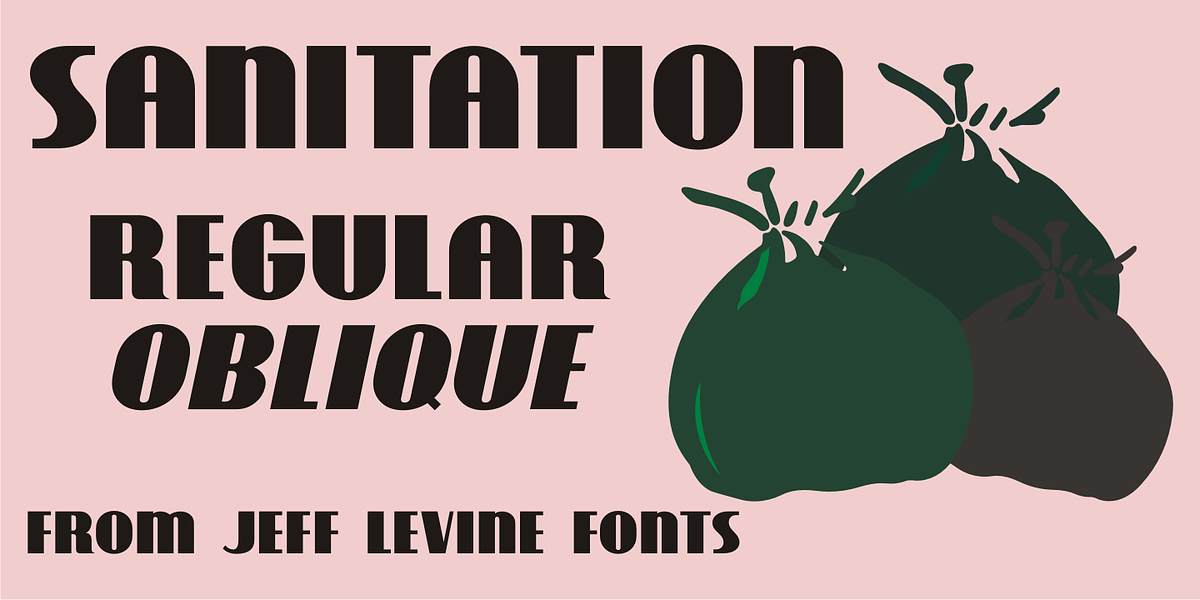
Sanitation JNL
Sanitation JNL is a bold Art Deco sans design inspired by some stylized hand lettering on a 1930s-era WPA (Works Progress Administration) poster and is available in both regular and oblique versions.
The topic of the poster was 'Your home is not complete without a sanitary unit' and that was recommended by the State Department of Public Health. A 'sanitary unit' is the formal name for what rural folks called an 'outhouse', and it's presumed the target group were homeowners not hooked up to major sewer lines such as in those rural areas.